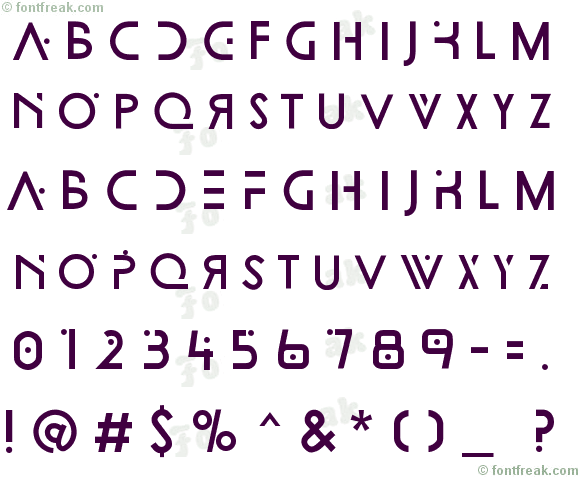
FoundationLogo
FoundationLogo by rsperberg is a striking display font that embodies a modern aesthetic while maintaining a professional edge. This sans-serif typeface features a clean and geometric design, characterized by its uniform stroke weight and minimal contrast. The letters are well-spaced, enhancing readability and making this font an excellent choice for a variety of creative projects. Its contemporary appearance is complemented by subtle decorative elements, such as the unique angles in certain letterforms, adding to its visual appeal.
This versatile font is ideal for numerous applications. It shines in branding projects, where a bold and memorable impression is crucial, making it perfect for logos and marketing materials. Additionally, FoundationLogo is well-suited for use in event promotions, such as music festivals or art exhibitions, where eye-catching typography can draw attention. The font also works beautifully for website headers, providing a modern touch to online content. Graphic designers and small business owners will find this font particularly useful for creating engaging social media graphics that stand out in crowded feeds.
What sets FoundationLogo apart is its ability to blend simplicity with a touch of sophistication, making it adaptable to various contexts while retaining its distinct character. Whether you are working on a new brand identity or crafting promotional materials, the FoundationLogo font free download provides a strong foundation for your creative endeavors. Embrace this font to enhance your projects with a modern flair that captures attention.